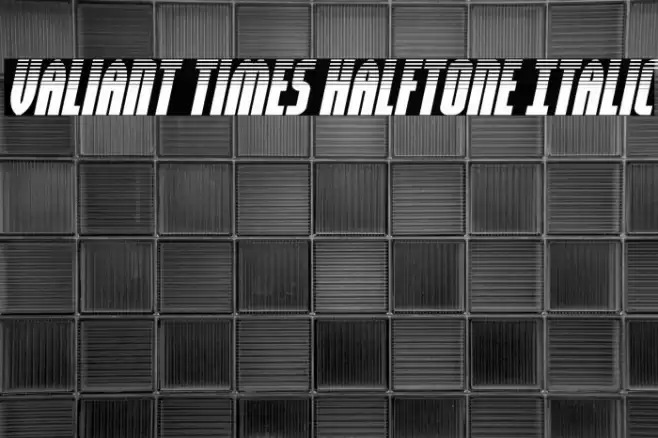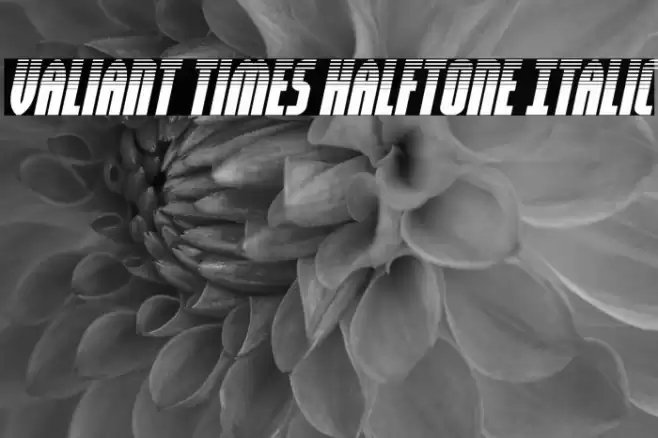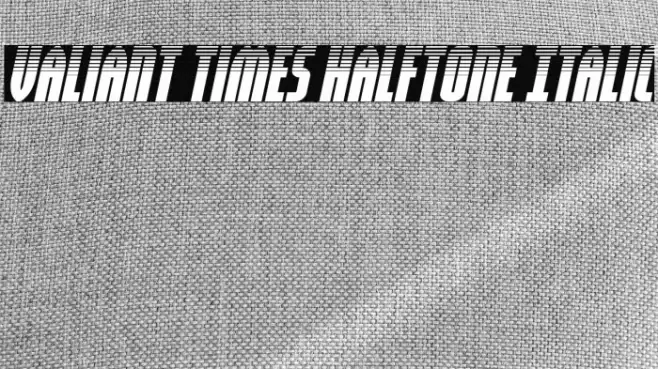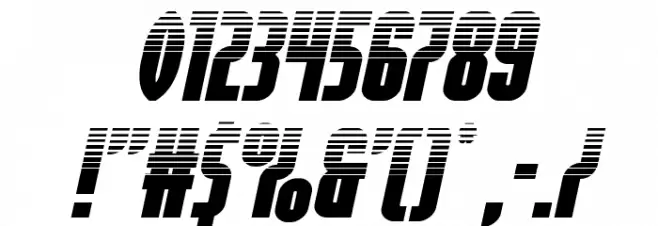
Valiant Times Halftone Italic Font
Valiant Times Halftone Italic Description
This font features a bold, italicized style with a unique halftone effect that gives it a dynamic and modern appearance. The uppercase and lowercase letters are designed with a slanted orientation, enhancing the italicized look. The characters are bold and have a distinct striped pattern that adds texture and depth. The numbers and special characters follow the same design principles, ensuring consistency across all glyphs. This font is particularly eye-catching and is designed to stand out, making it ideal for attention-grabbing headlines or logos. The spacing between characters is tight, which contributes to its compact and impactful presentation. The overall style is modern and decorative, with a high contrast in stroke thickness that emphasizes its boldness.
A bold, italicized font with a halftone effect and high contrast, ideal for modern, eye-catching designs from Uncategorized fonts.
- Proposed Projects: This font is perfect for projects that require a bold statement, such as posters, advertisements, branding, and logo design. Its unique style can also be used in digital media, such as video game graphics or website headers.
- Character Spacing: Tight
- Overall Style: Modern, Decorative
- Use Case: Headlines, Logos, Posters, Branding